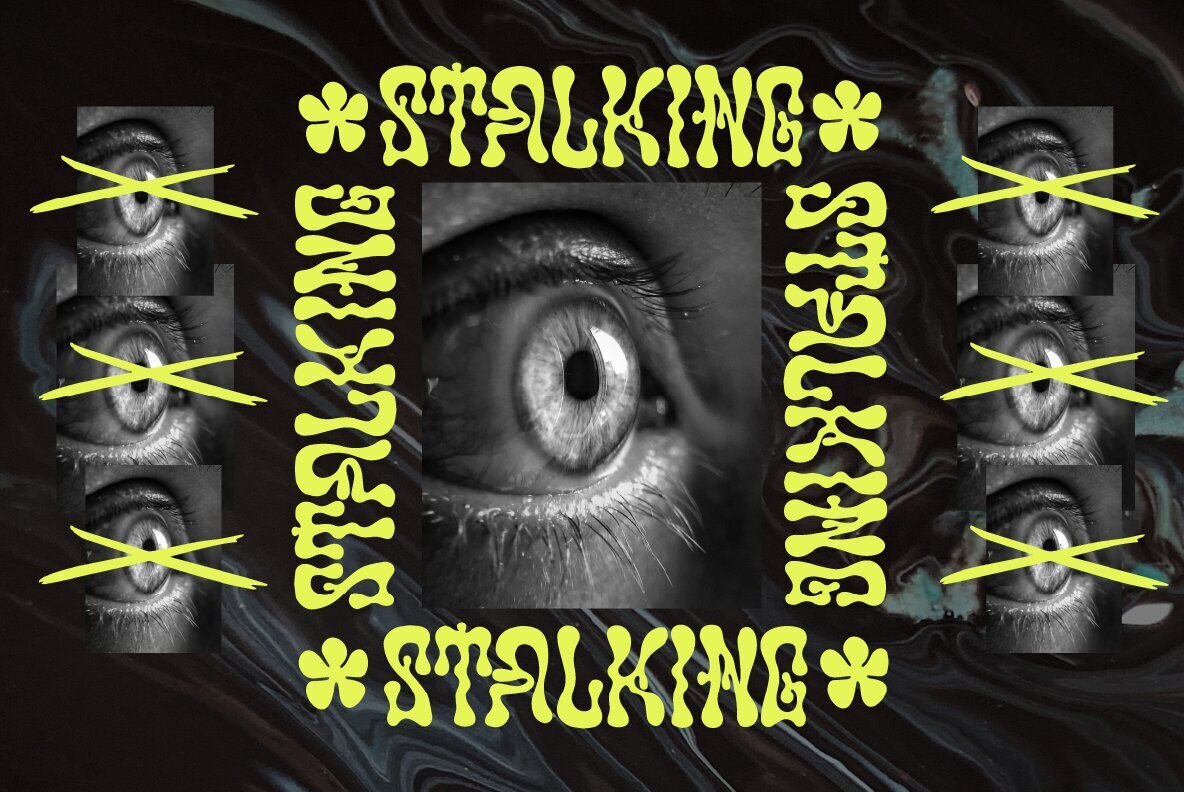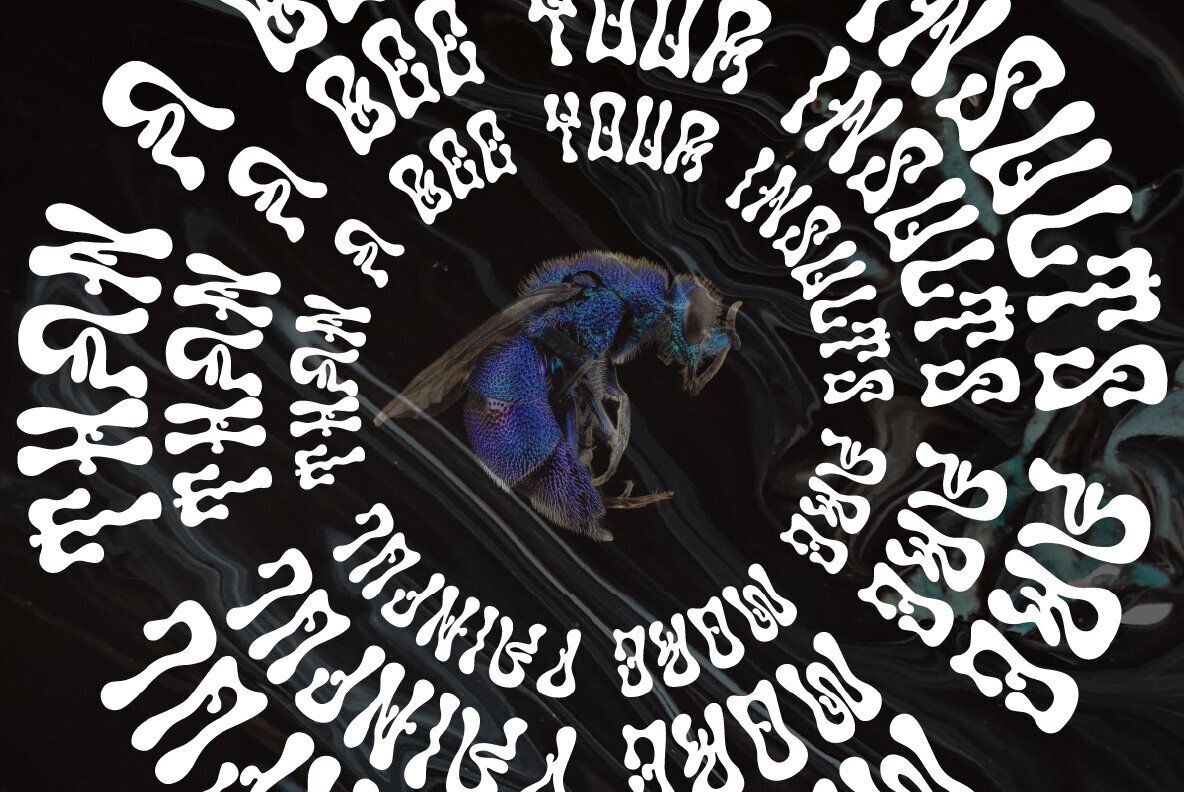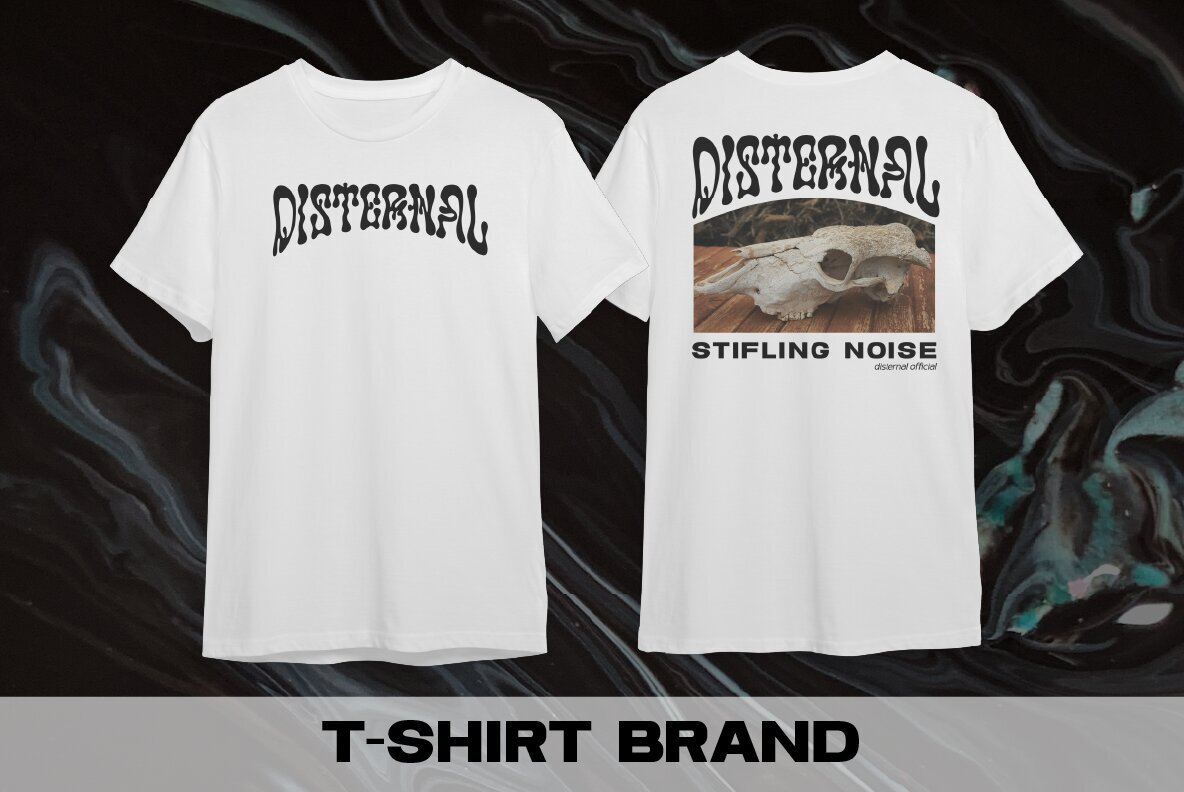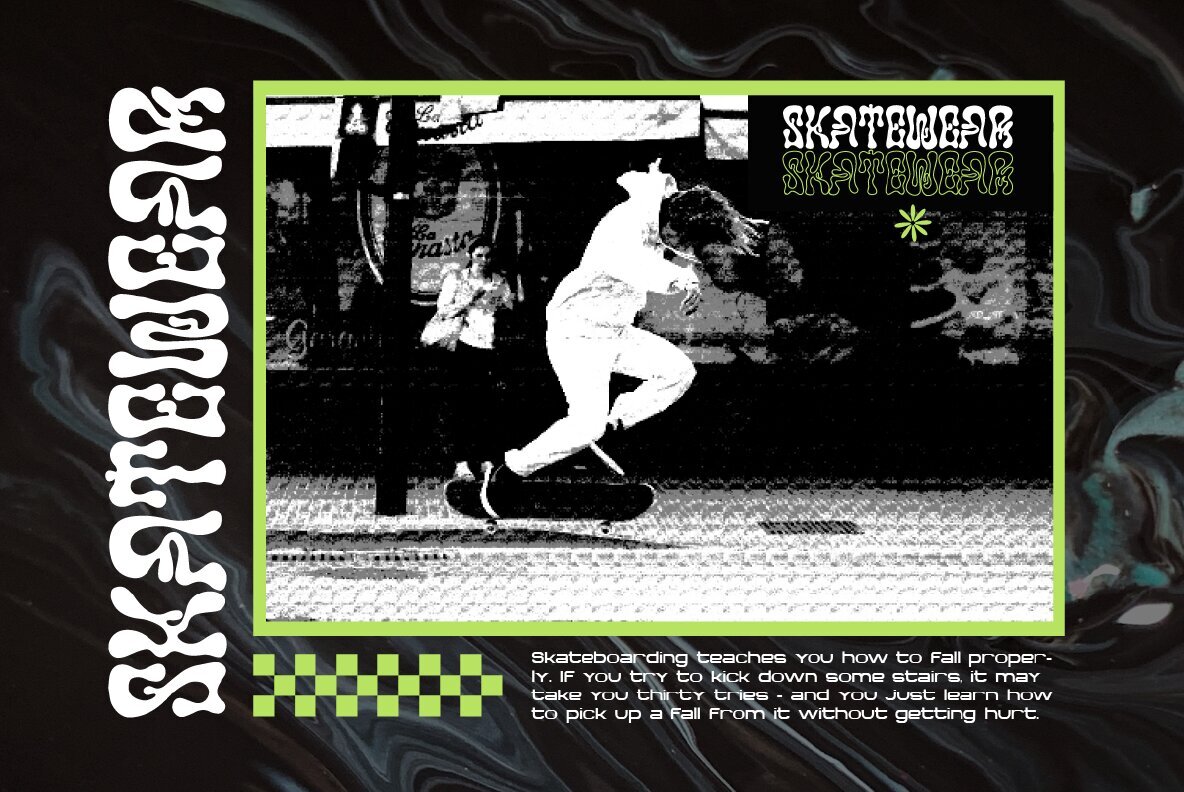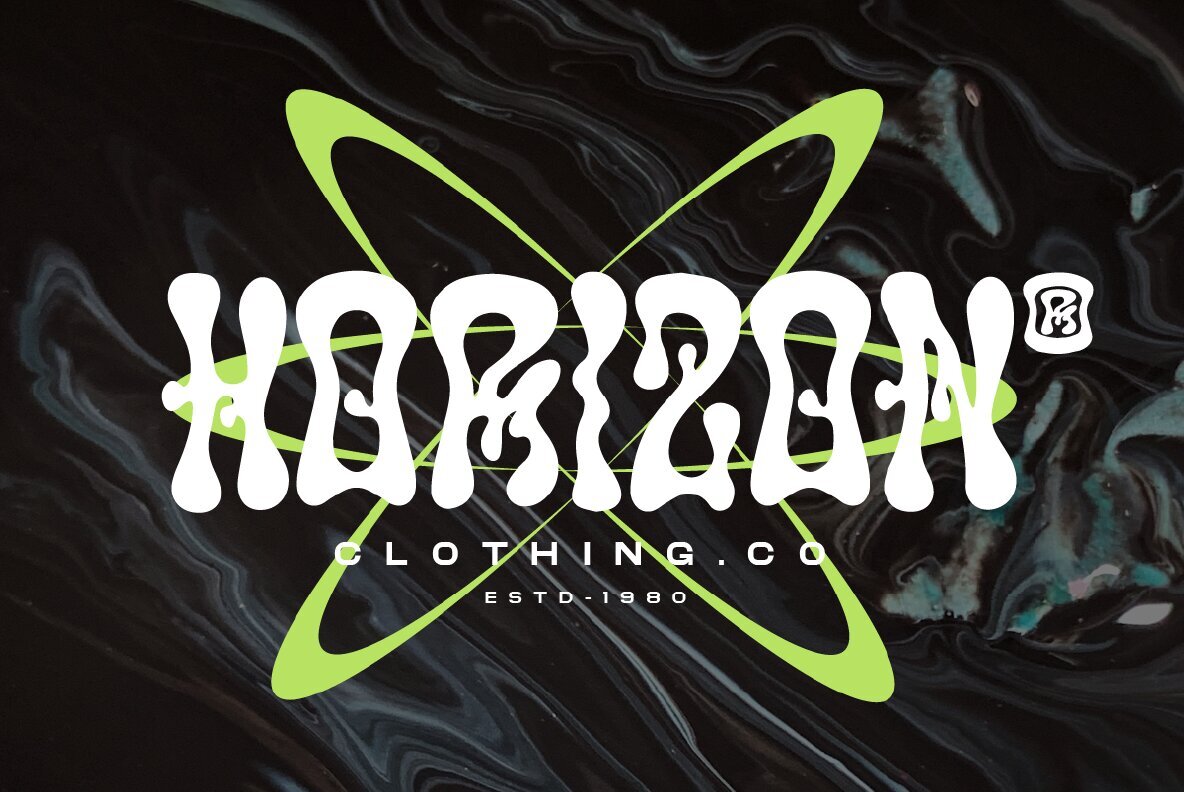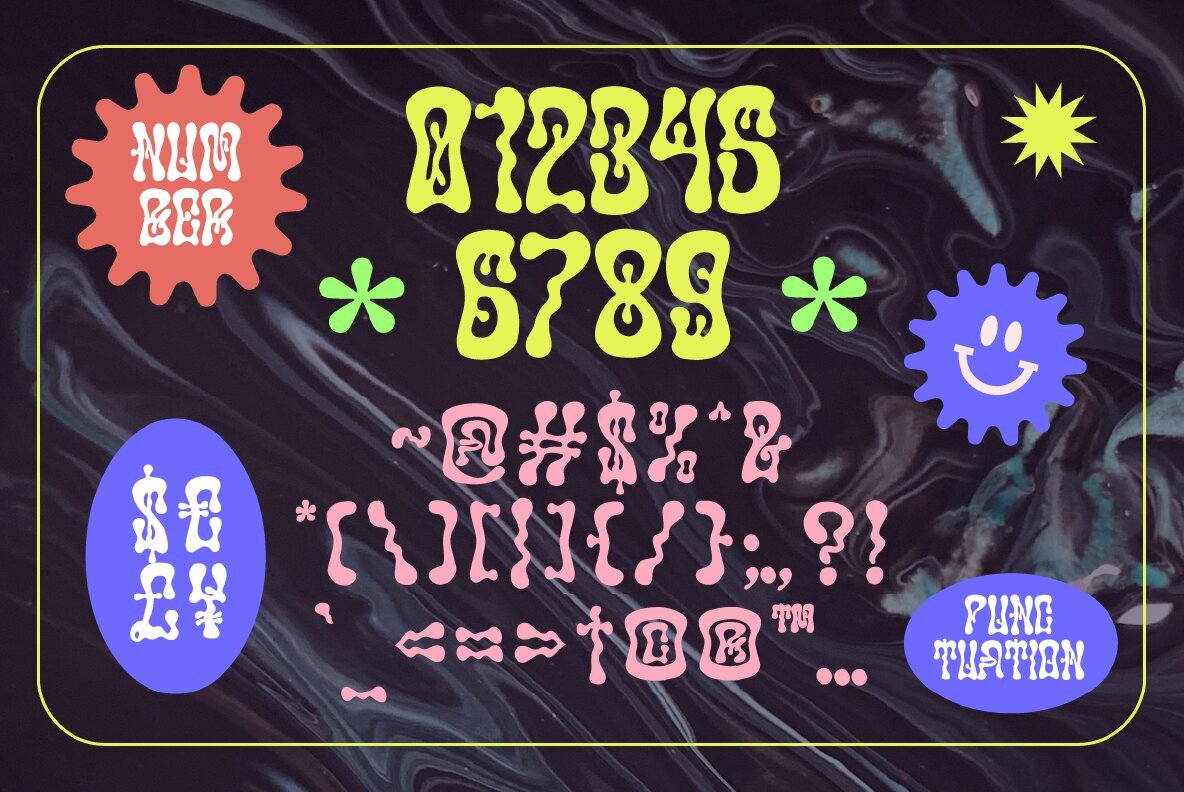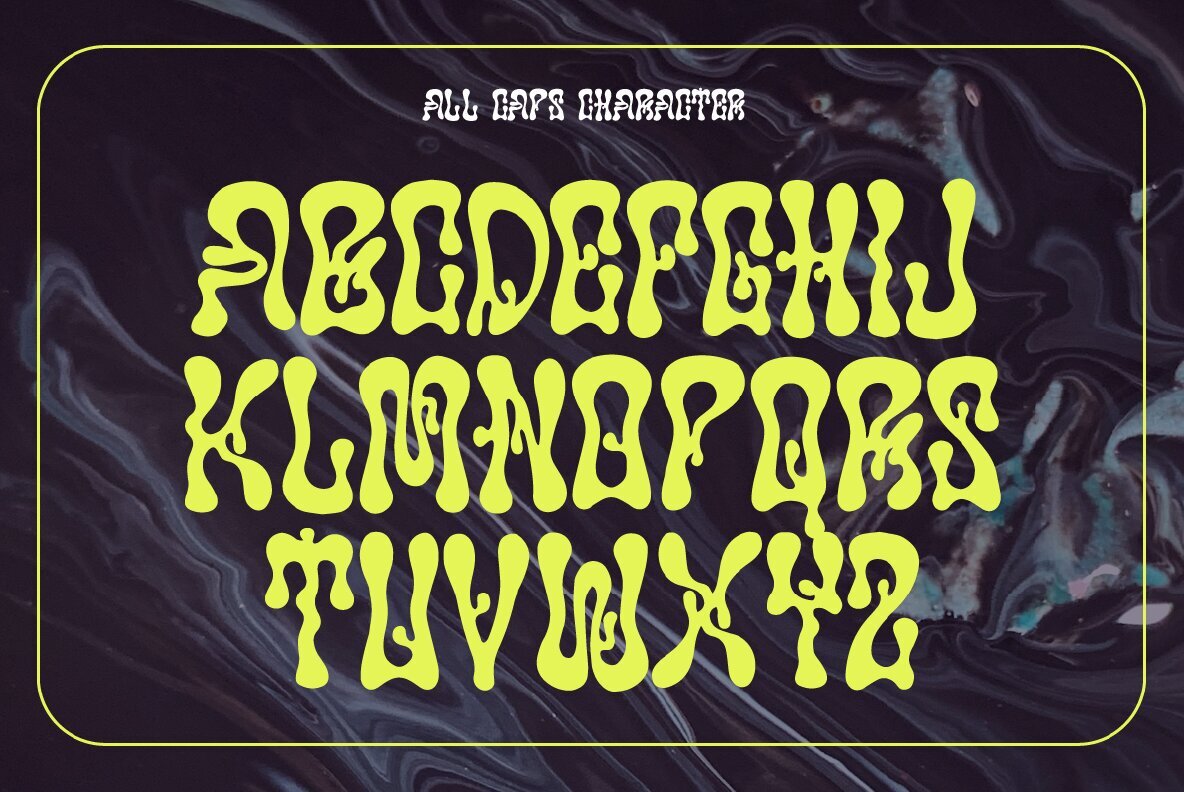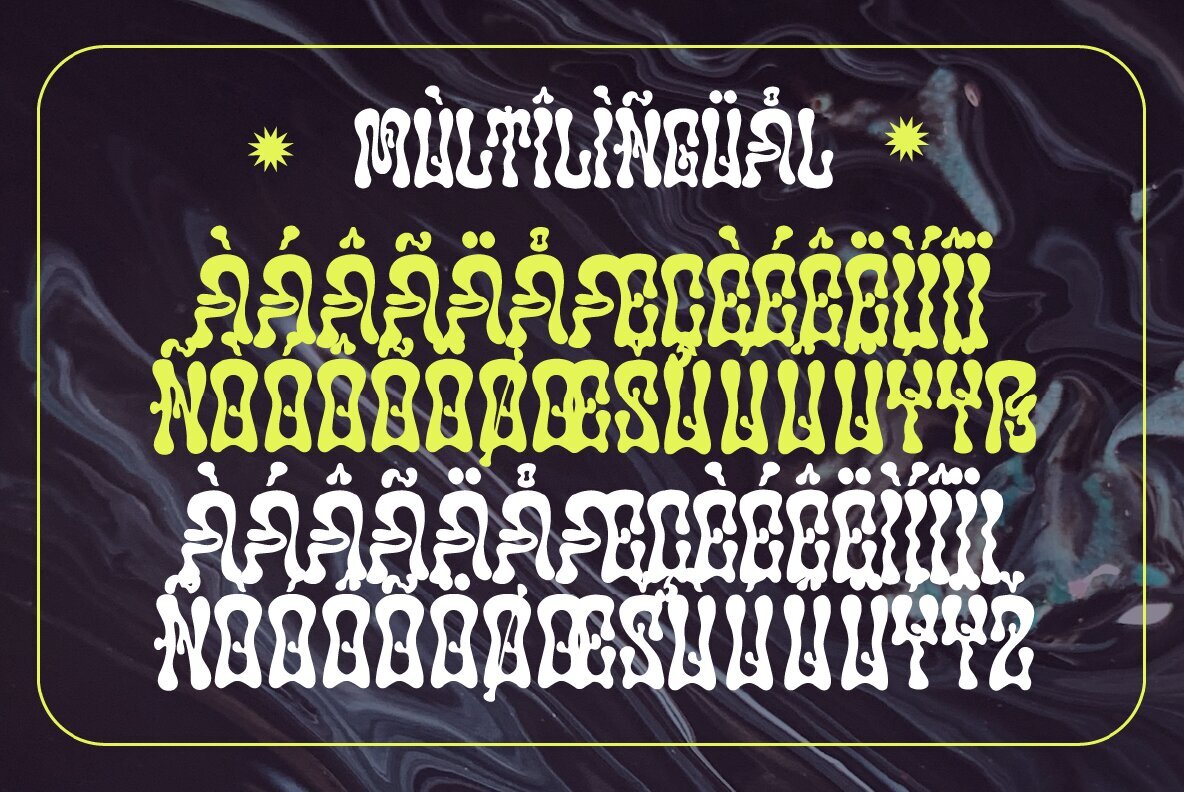
Squidwod Font
Squidwod
Infuse your designs with the boldness and playfulness of Squidwod, a retro-inspired font that adds a contemporary, hand-crafted touch to any project. Perfect for designers aiming to incorporate a psychedelic flair, this font excels in bringing a unique typographic texture to posters, magazines, social media platforms, and branding initiatives.Squidwod: A Retro Font for Bold, Playful Designs
Discover the potential of Squidwod, an essential tool for designers who appreciate a touch of retro elegance in their work.